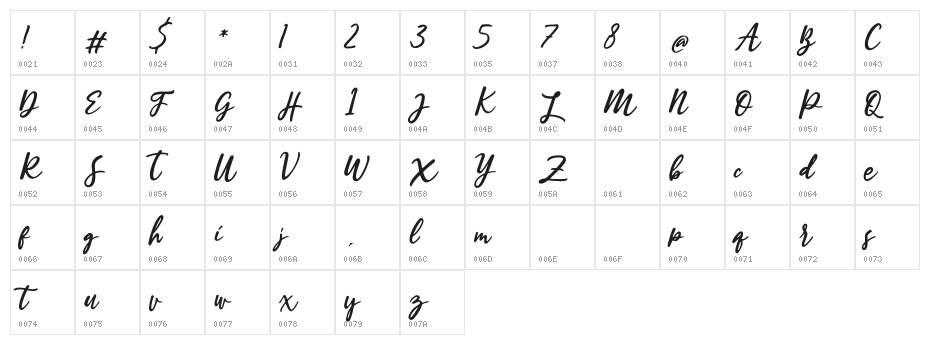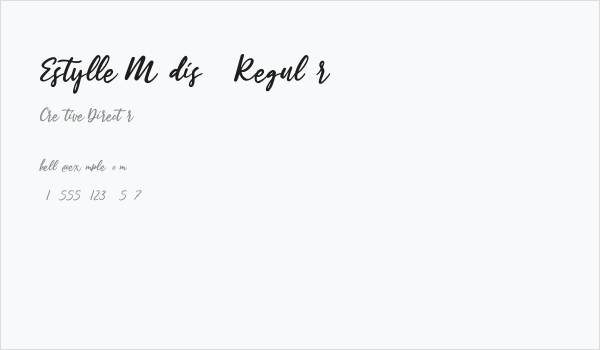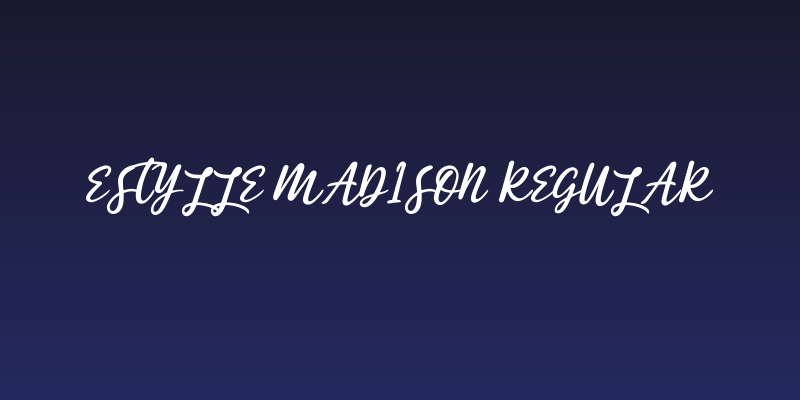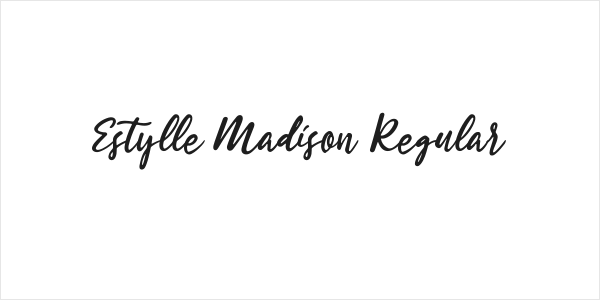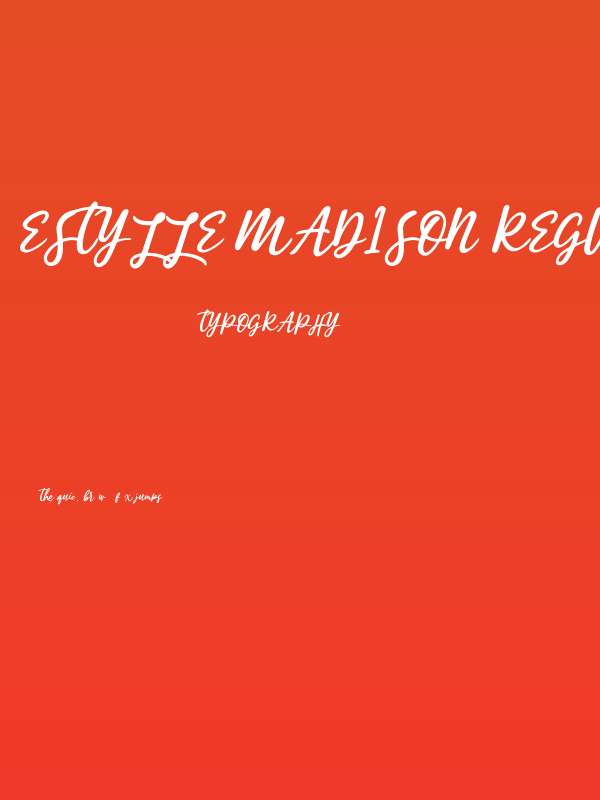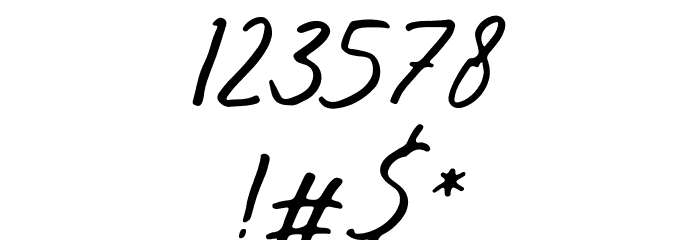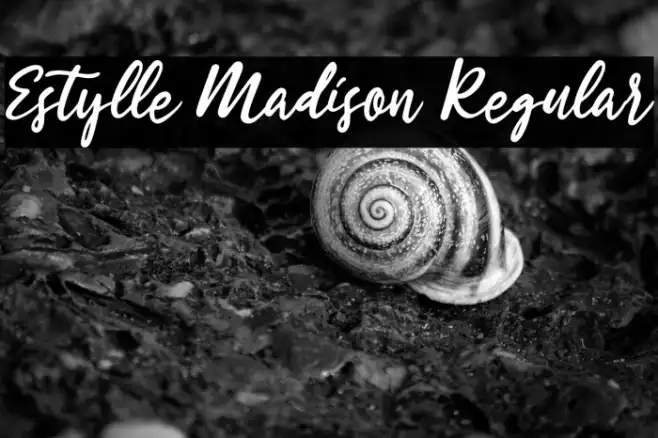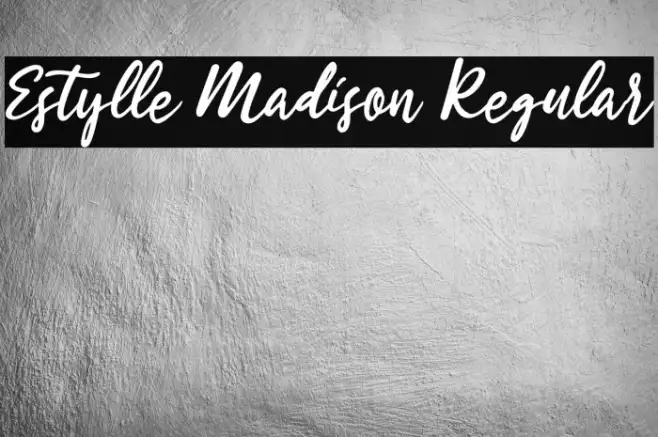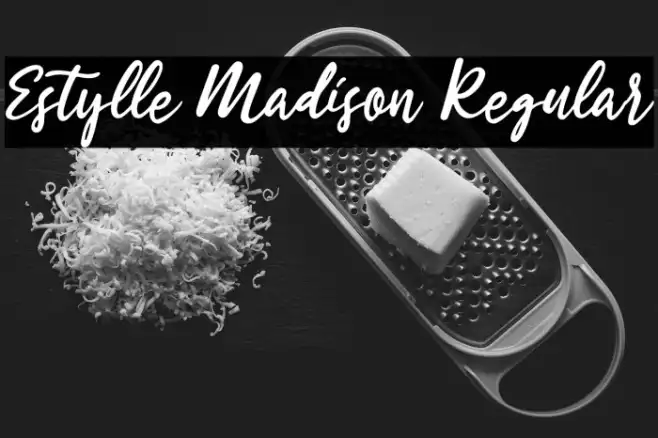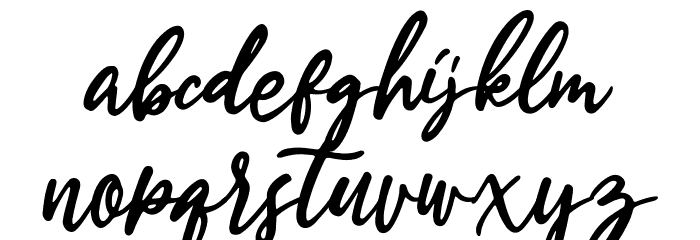
Estylle Madison Regular Font
Estylle Madison Regular Description
This font features a flowing, cursive style with a handwritten appearance. The letters are connected, giving it a smooth and continuous look, reminiscent of elegant calligraphy. The uppercase letters are bold and prominent, while the lowercase letters maintain a consistent flow. The numbers and special characters are designed to match the overall script style, ensuring a cohesive appearance. The strokes are moderately thick, providing a balanced contrast that enhances readability while maintaining an artistic flair.